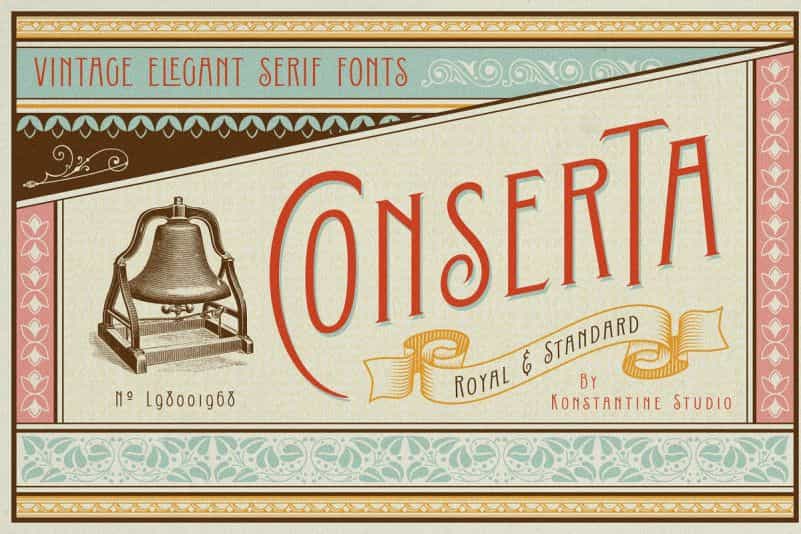
Discover Conserta Vintage Display Font, part of the Display Retro Gothic collection—a versatile and unique font perfect for adding a personal touch to your projects. Download it for free and enjoy crafting designs with style, from invitations to social media posts. This font is available exclusively for personal use, giving you the freedom to create without limits. Unlock your creativity with Conserta Vintage Display Font today!
Introducing Conserta Font. It is a creative work and has been uploaded by Konstantine Studio. This is based on the vintage label and packaging design concept which we did a very interesting study about the type works in the earlier period. It’s hard for us to focus on one single reference that we have come across as we overemphasize it. I am so fascinated on how each letters in the brands differ in their packaging designs.